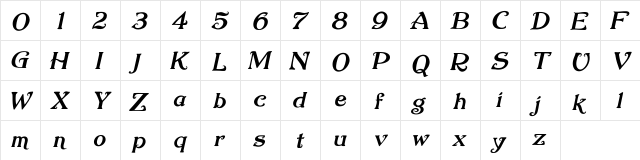
Nugie Romantic Italic Nugie Romantic Italic
Design Context for Nugie Romantic Italic Typeface
Nugie Romantic Italic offers clean, dependable letterforms without strong stylistic allegiance, making it a practical choice for designers who need flexibility. Its italic angle brings a sense of urgency and motion to the letterforms.
Pro Tip: Use Nugie Romantic Italic for emphasis, pull quotes, and subheadings where its slanted energy can add rhythm to the layout.